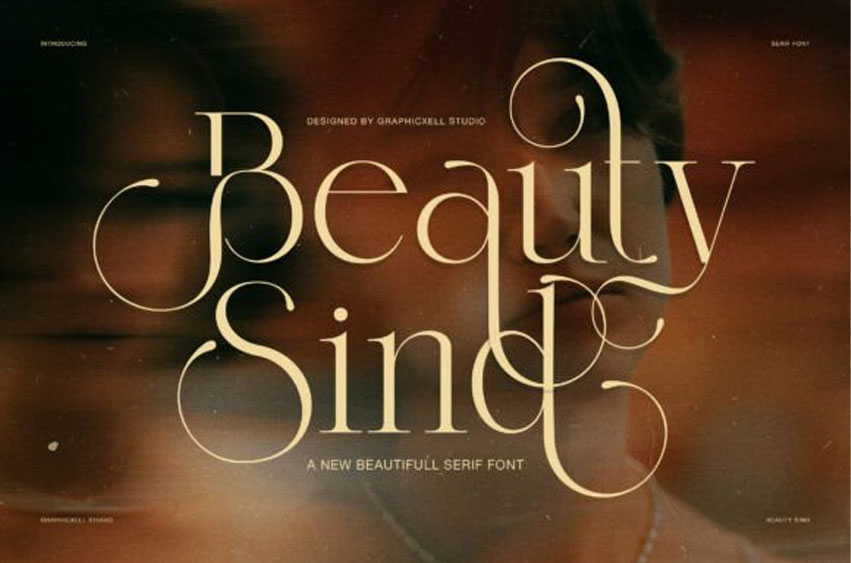
Beauty Sind Font
Beauty Sind Font has a refined serif shape with a strong fashion style. Because of its long loops and flowing details, Beauty Sind can turn simple words into eye-catching typography. Therefore, it is a great choice for brands that want to look elegant and memorable.
The letterforms show tall shapes, fine contrast, and soft rounded endings. Also, the alternate characters add more creative value. They help each word feel more personal, artistic, and unique without losing a clean layout.